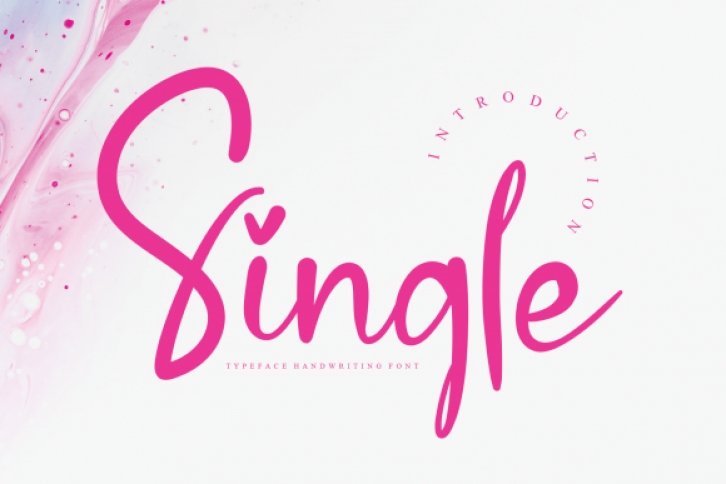
Single is a jolly and beautiful script font. It has a classy, elegant and modern look that can be used for logos, branding, invitations, stationery, wedding designs, social media posts, and much more!